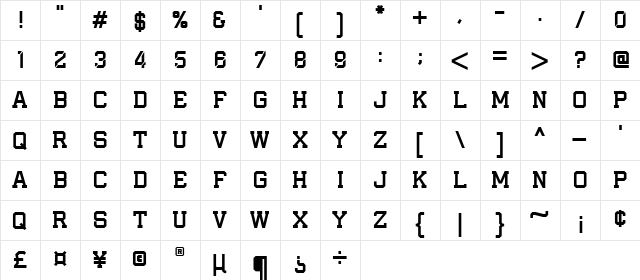
I AM A PLAYER Regular
Design Context for I AM A PLAYER Typeface
I AM A PLAYER offers clean, dependable letterforms without strong stylistic allegiance, making it a practical choice for designers who need flexibility.